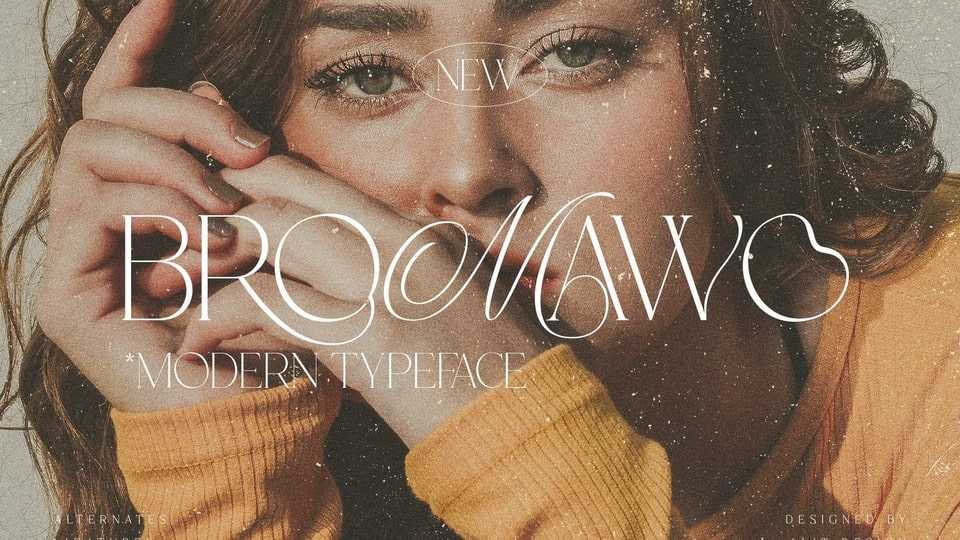
Download Bromawo font, a sophisticated, charming display typeface with a fashionable touch. Specially designed for luxury, elegant, feminine projects, Bromawo font is perfectly suitable for creating modern, chic designs.